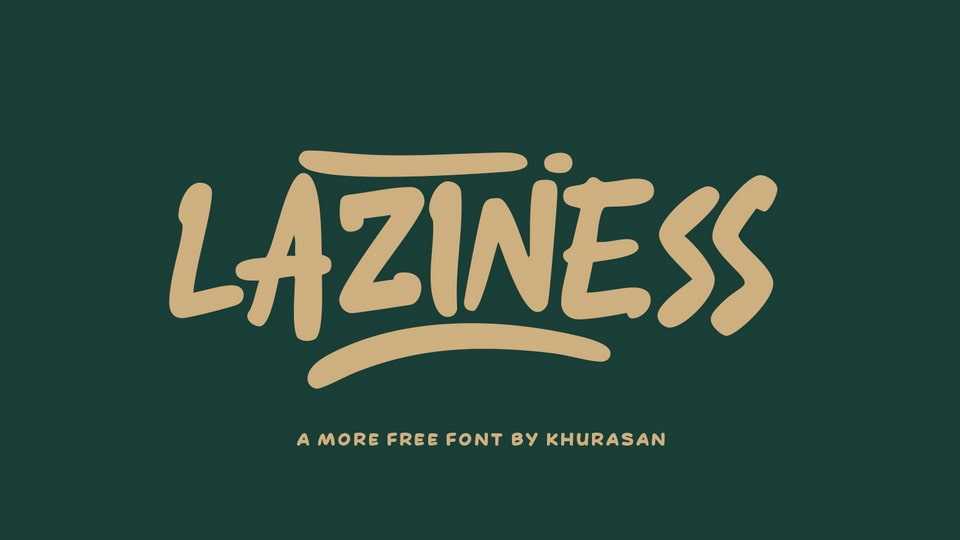
Download Laziness font, a dynamic hand lettered typeface that will impress any project with its simple yet powerful style. Whether you need it for posters, logos, branding, or graphic projects, Laziness font is the perfect choice for a truly authentic look.